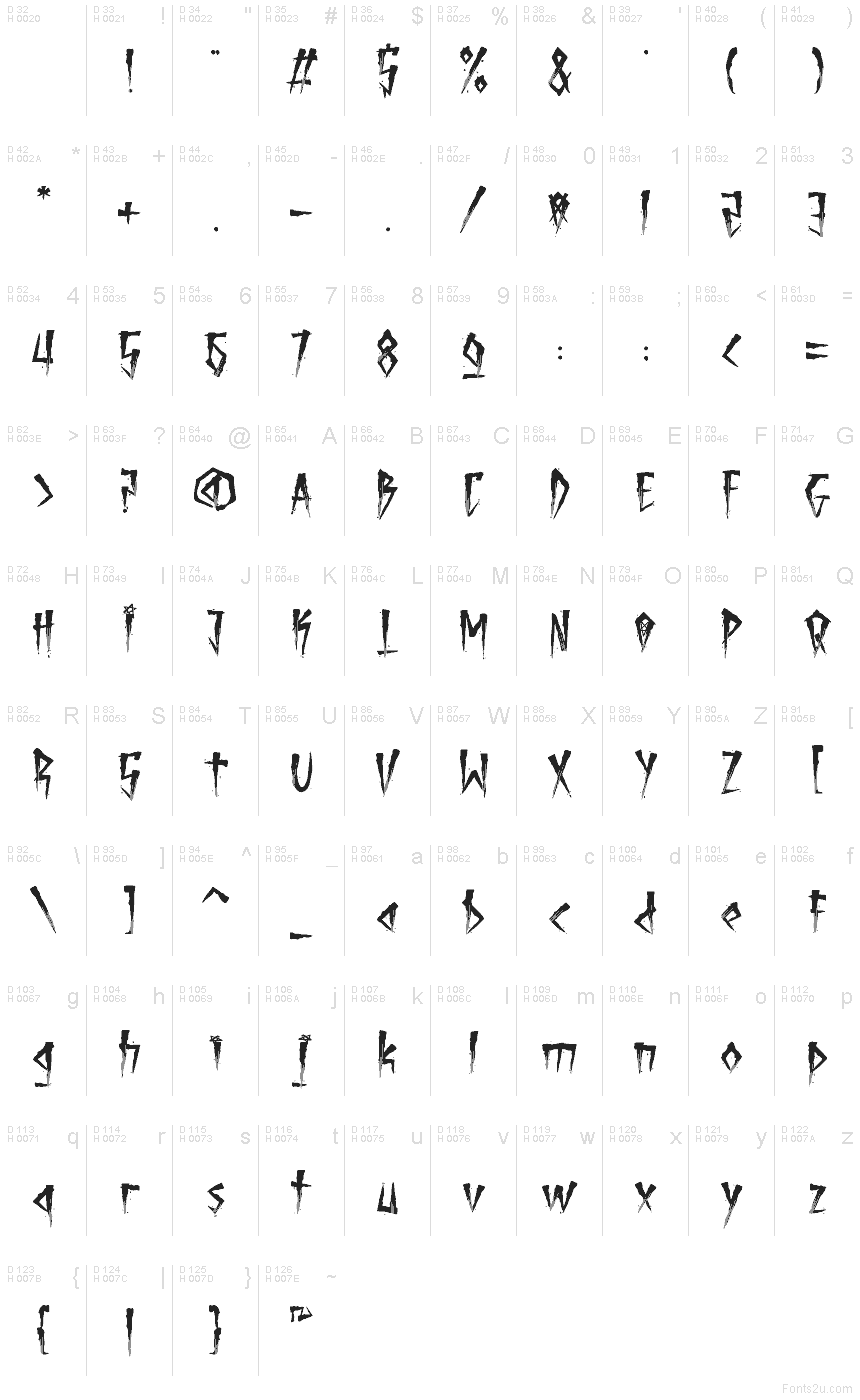
Brutal Brushstrokes Three
Brutal Brushstrokes Three font by PutraCetol Studio is a free Halloween display font. Part of the Brutal Brushstrokes family, it slashes across the page with splintered strokes, ragged edges, and inky spatters that feel ripped from a scratched door. Letters lean and jab like handmade signage, giving you instant “haunted” energy without needing extra effects.
Using Brutal Brushstrokes Three, headlines jump on haunted house posters, slasher film titles, escape room branding, spooky party flyers, game splash screens, and horror merch tags. This free font stays legible at large sizes while keeping that barbed, gritty texture. Pair it with a clean condensed sans for body copy, and let the brush letters do the screaming.